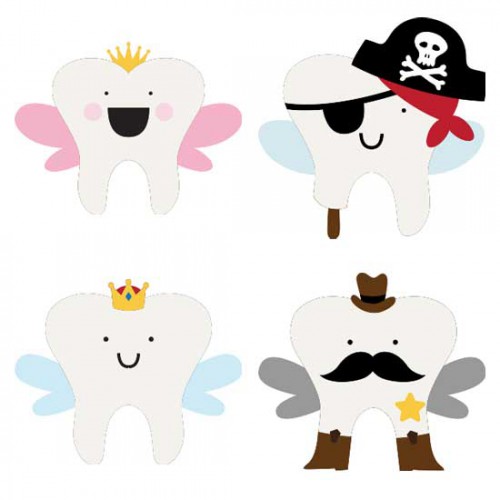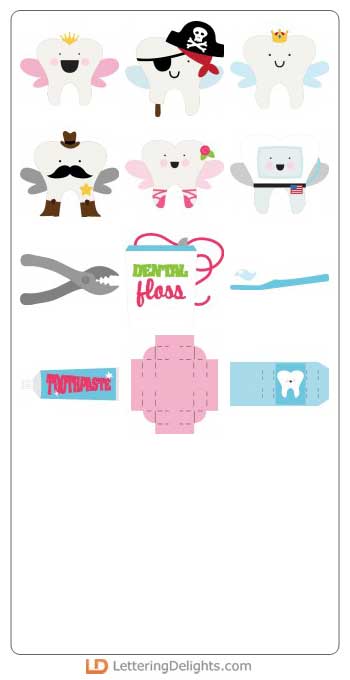
Dear Tooth Fairy - CS
Smile, everyone! Show those pearly-whites! The Big Tooth alphabet makes learning about dental hygiene a party! {I'm totally thinking 'Brushing Chart'...how about you?!} And the next visit from the Tooth Fairy just got a whole bunch cuter. Ohhh, and what about those memory pages showing first teeth! Or the annual visit to the dentist! Or braces on---Or off! Wow, how'd we survive without this alphabet?! {grin} There's a whole lot of dentistry when you stop to think about it...